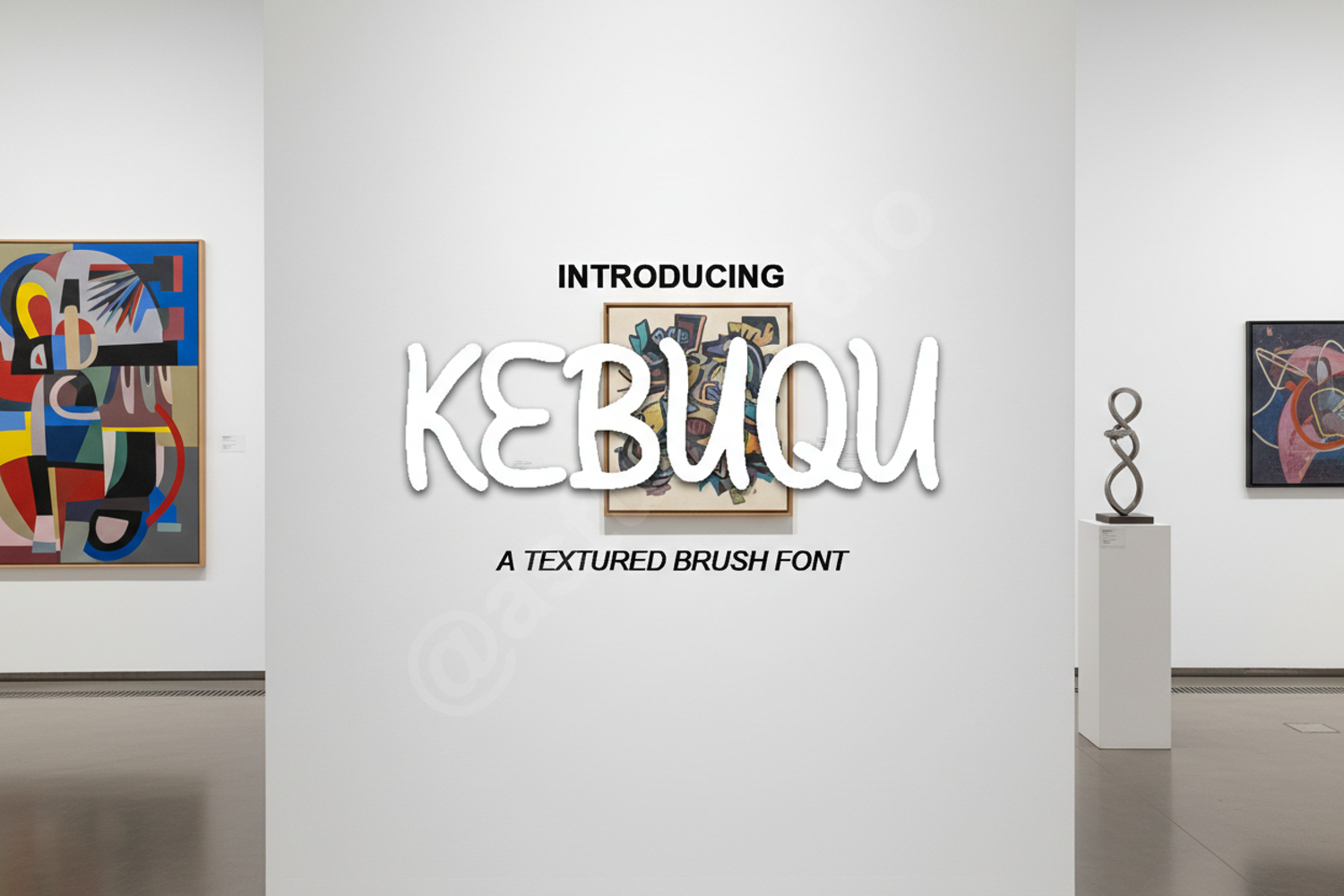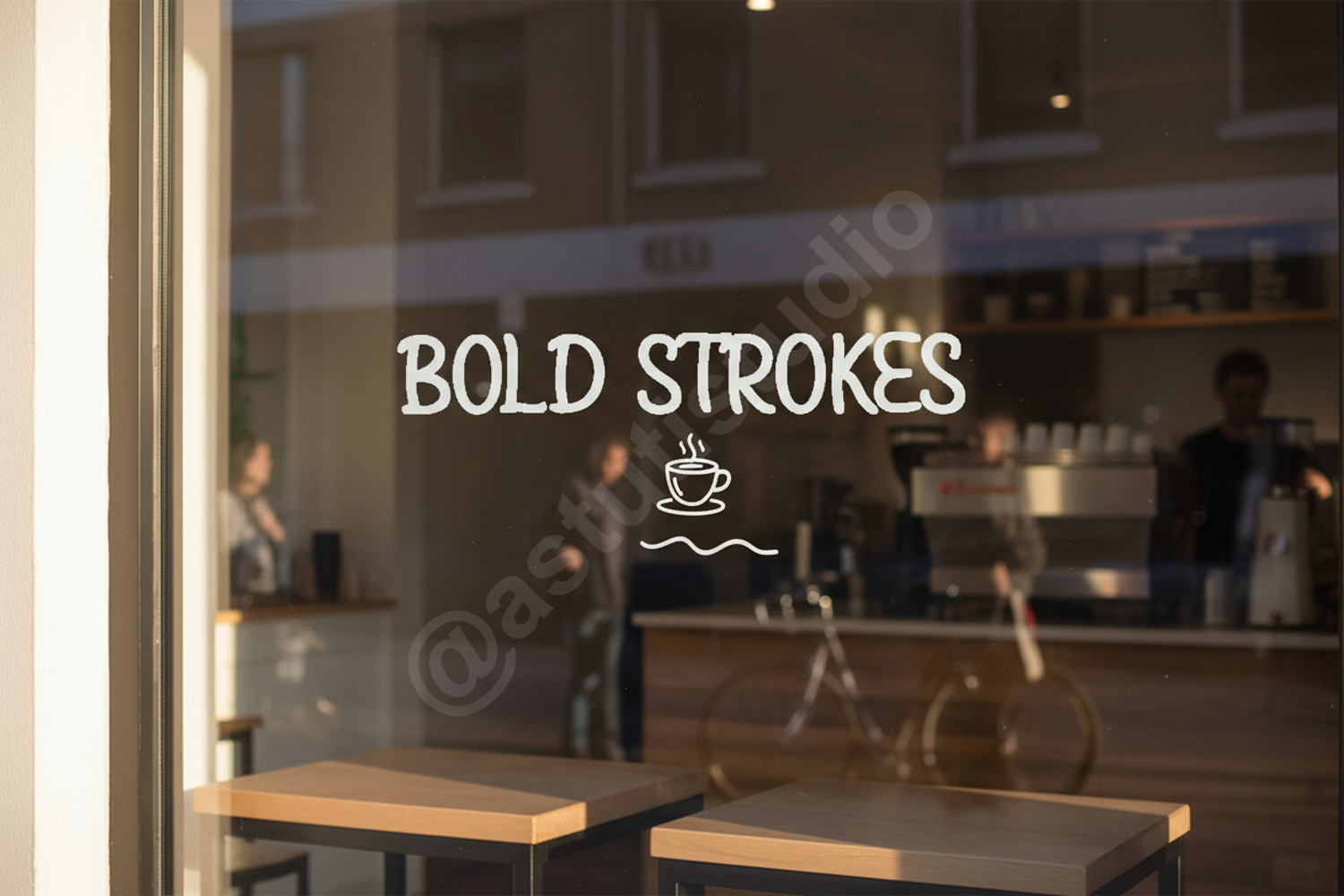
Kebuqu - Modern Sophisticated Serif Font
Kebuqu
Elevate your design projects with Kebuqu, a premium serif font that seamlessly blends classic elegance with a modern, sophisticated aesthetic. Designed for creators who demand high-quality typography, Kebuqu features refined lines and unique character shapes that make every word stand out. Whether you are working on a luxury brand identity or a minimalist editorial layout, this font provides the versatility and professional polish your work deserves.
- Comprehensive set of Uppercase and Lowercase letters
- Extensive Multilingual support
- Unique Ligatures and Alternates for custom looks
- Numerals and Punctuation
- Branding and Visual Identity: Create memorable logos and brand marks that exude luxury.
- Wedding Stationery: Add a touch of timeless class to invitations, menus, and place cards.
- Editorial Design: Perfect for high-end magazine layouts, book covers, and digital articles.
- Social Media: Design eye-catching quotes and promotional graphics with a premium feel.
- Packaging Design: Enhance product packaging with typography that speaks to quality and craftsmanship.